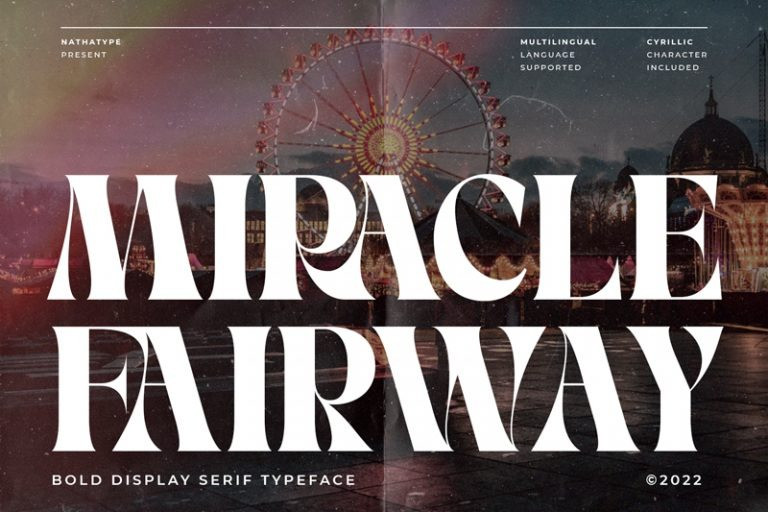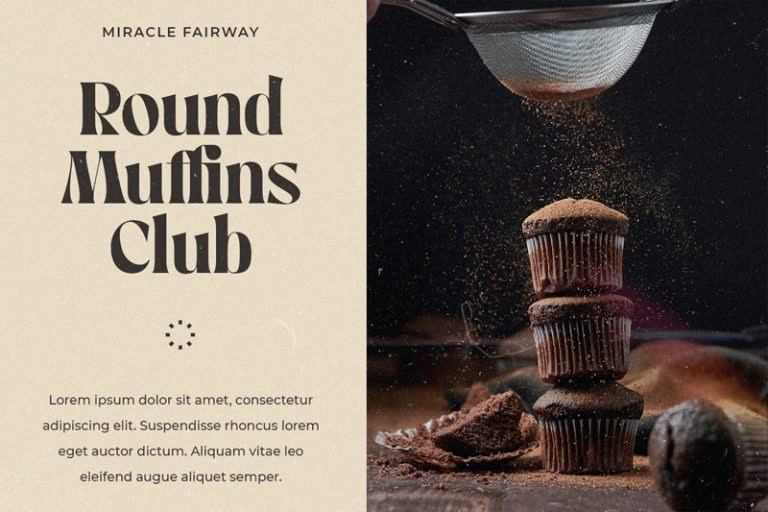
Miracle Fairway Font
Miracle Fairway Serif Font is a display serif font in a thick weight design with which you can create elegant, modern, interesting designs full of fun energy. The letters’ proportions and the high contrasts are at the same level for a great legibility reason to make this font applicable to any text sizes. You may also enjoy various features available in this font.